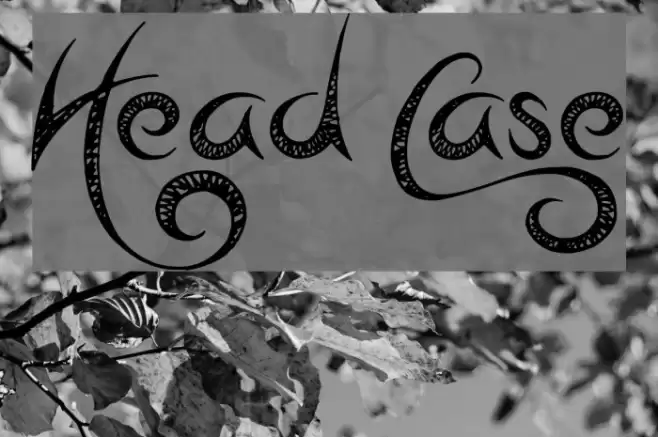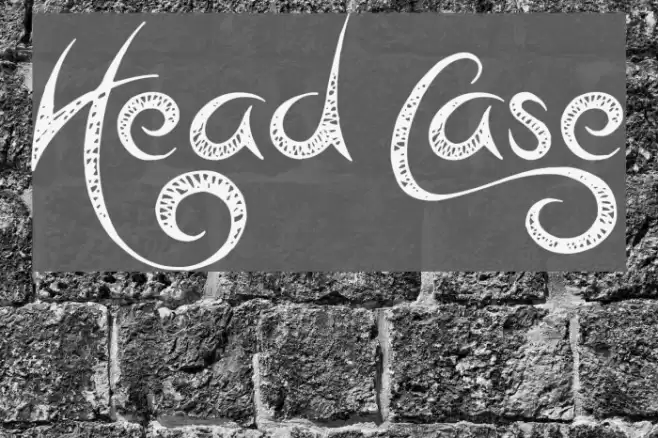
Head Case Font
Head Case Description
This font features a highly decorative and artistic style, characterized by intricate swirls and curls that extend from each letter. The uppercase and lowercase letters are designed with a whimsical flair, incorporating bold, sweeping curves and loops. The font has a hand-drawn appearance, with a playful and imaginative aesthetic that makes it stand out. The characters are adorned with detailed patterns, adding to the overall ornate look. This font is ideal for creative projects that require a unique and eye-catching typeface.
A decorative and artistic font with intricate swirls and curls from Uncategorized fonts.
- Proposed Projects: Ideal for tattoo designs, artistic posters, creative branding, and decorative invitations.
- Use Case: Logos, Headlines, Artistic projects